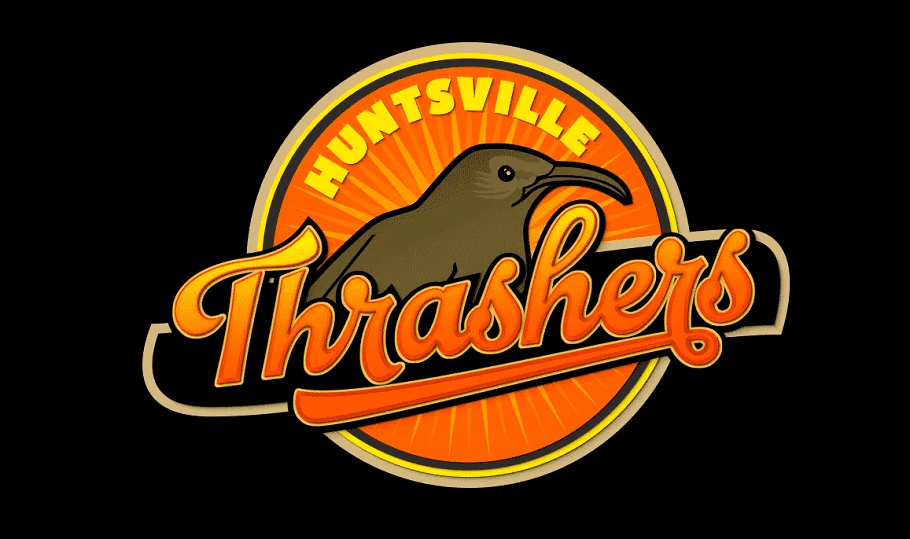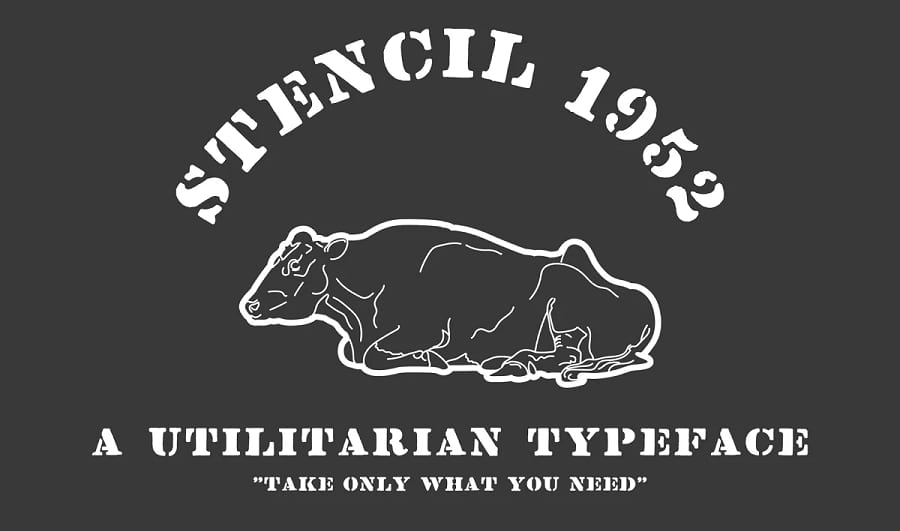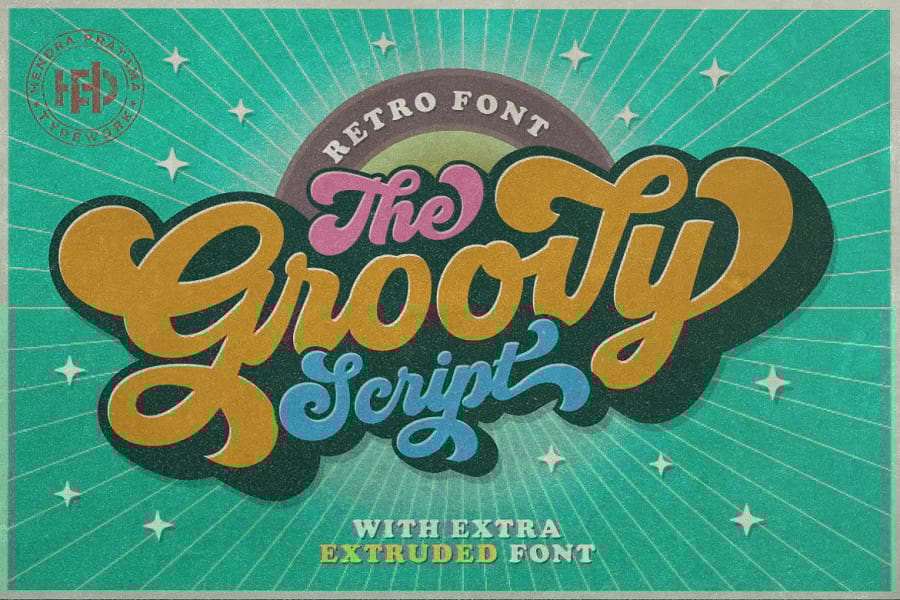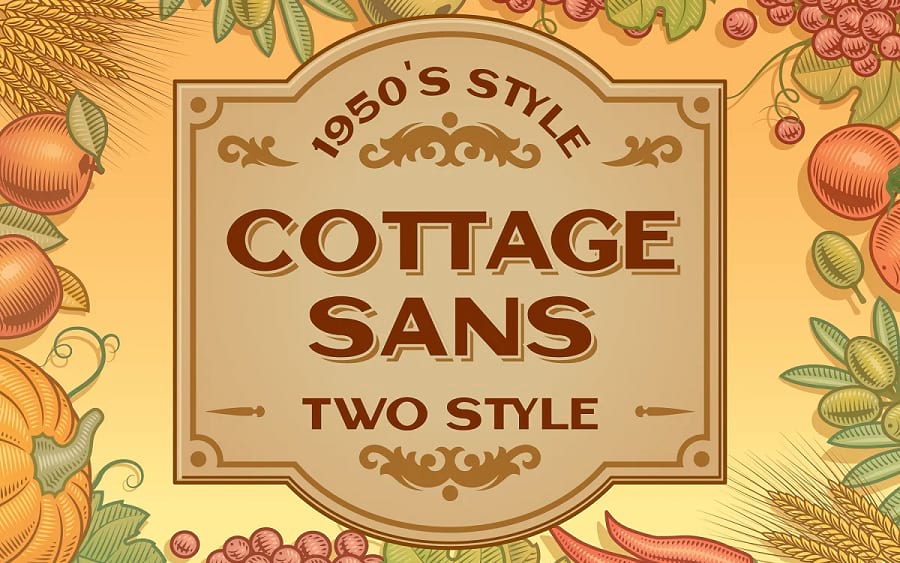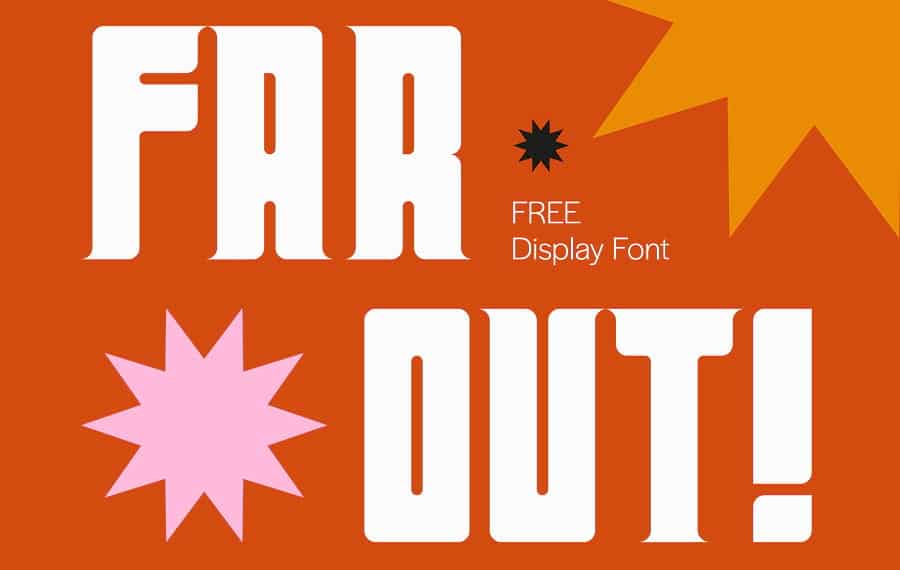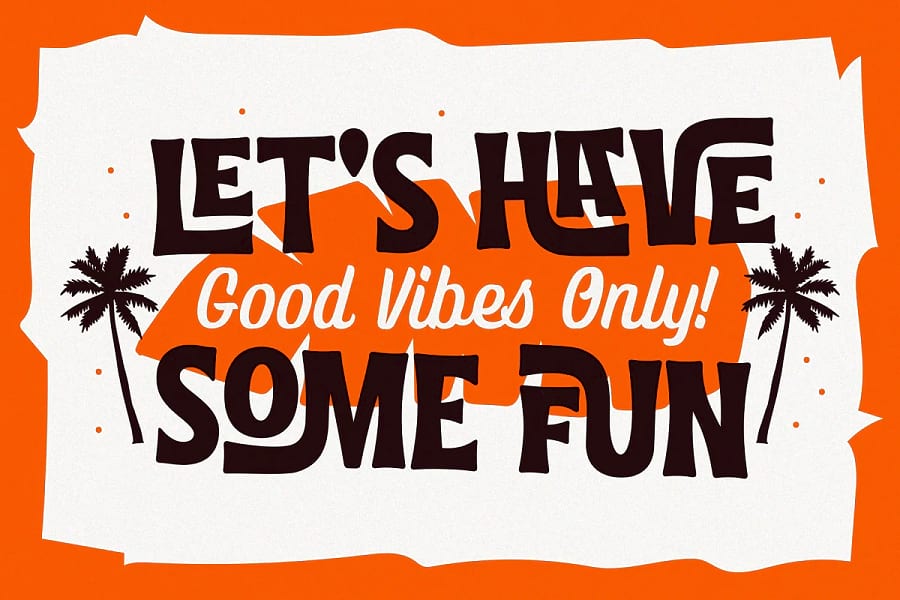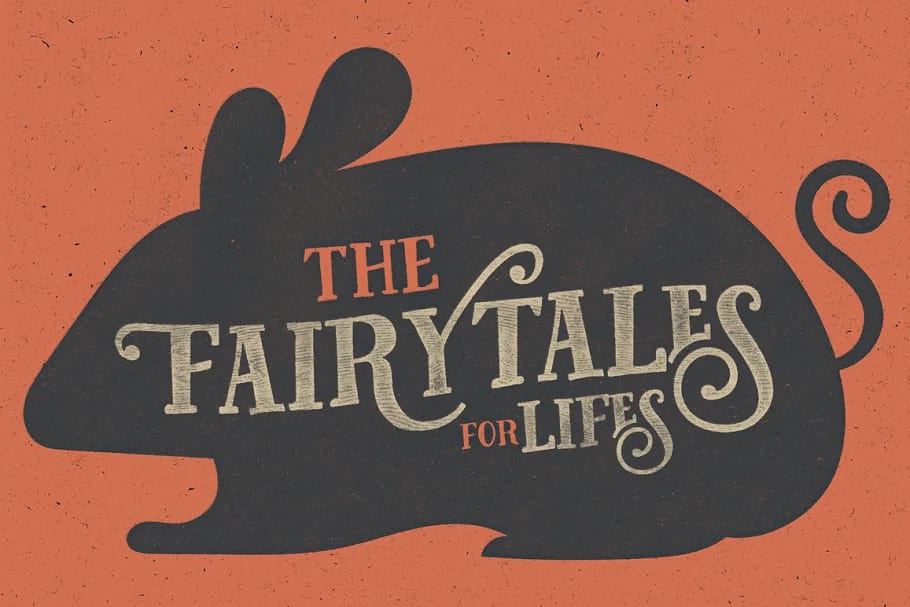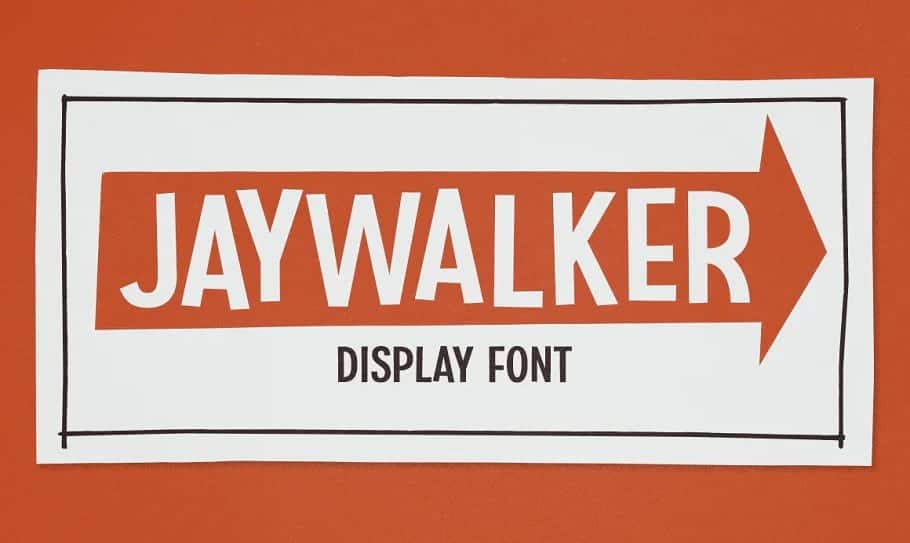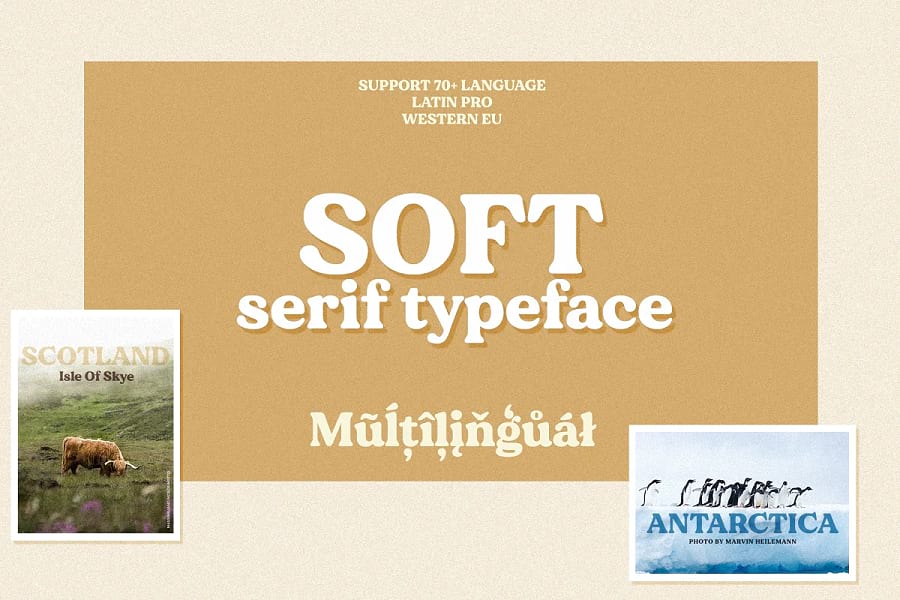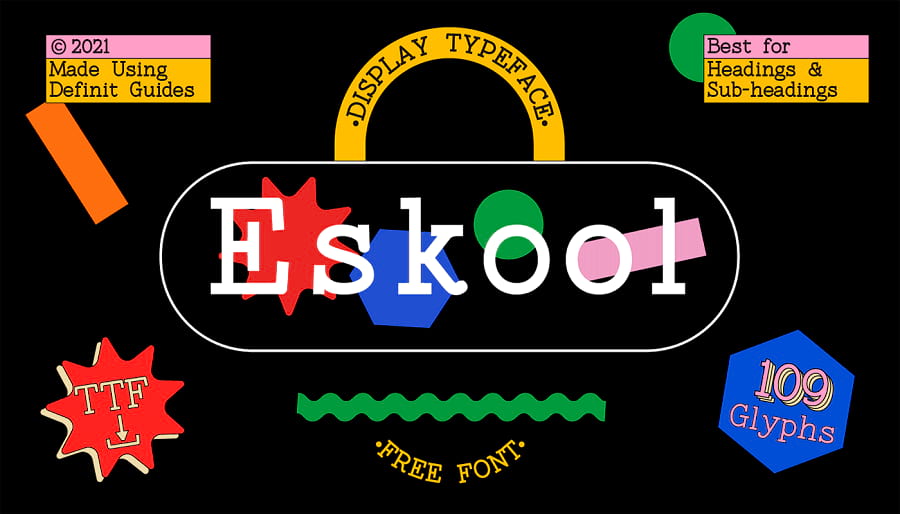
50+ Stunning Retro Fonts From the 50s to the 90s
33. Rotis
34. Souvenir
35. Stencil
36. Times New Roman
37. Trade Gothic
38. Trajan
39. Twentieth Century
40. Univers
41. VAG Rounded
42. Verdana
43. Windsor
44. Avant Garde
45. Benguiat
46. Bodoni Egyptian
47. Brushstroke
48. Caslon
49. Century Schoolbook
50. Comic Sans
51. Copperplate
52. Didot
53. Franklin Gothic
54. Futura Condensed
55. Gill Sans
56. Gotham
57. Hobo
58. ITC Avant Garde
59. ITC Bauhaus
60. ITC Garamond
61. ITC Lubalin Graph
62. ITC Stone Sans
63. ITC Zapf Chancery
64. Letter Gothic Std
65. Minion
66. Myriad
67. News Gothic
68. Palatino Linotype
69. Playbill
70. Poppl Laudatio
71. Proxima Nova
72. Rotis Sans Serif
73. Sabon
74. Segoe UI
75. Skia
Retro web fonts are packed with character, and they can give your website or graphic design project a nostalgic feel. But finding decade-specific fonts isn’t easy, so we’ve curated this list of vintage fonts organized by decade.
From the bright and peppy typography of the 90s to an elegant font designed after professional 50s lettering, “retro” is a diverse descriptor, and there’s plenty to choose from here.
What Are Retro Fonts?
Even those who never witnessed it themselves are familiar with the popular typography from the 20th century. From the early comic books of the 50s to the bold and bubbly scripts of the 60s and 70s to the fun cartoonish fonts of the 90s, each era was bursting with a unique personality.
“Retro” describes fonts that were either made in the 20th century and survived to see everyday use or were created by designers today attempting to emulate one of these styles.
Signage, posters, covers, advertising, TV shows and video games, logos, and famous brands from the 1950s-1990s all serve as inspiration.
These bold retro fonts look best in large sizes, whether you’re using them in a print design, emails, or showcasing them on your website.
Vintage 50s Retro Fonts
1. Labor Union
Labor Union font
The Labor Union font, inspired by the typography of the mid-20th century, would fit well in any project that requires a vintage industrial feel. It’s fully free, including for commercial use, so go ahead and put these bold serifs in a project of any kind.
2. TOOM
TOOM font
TOOM is heavily based on the work of EC Comics, a company that printed horror, dark fantasy, and science fiction comics in the 1940s and 1950s. Their signature uncanny text was created using a machine to emulate a handwritten style. Old comic fans will love this one.
3. Dog Days
Dog Days font
Dog Days manages to perfectly capture the handwritten calligraphy brush script popular in the past. It borrows its style from a vintage swimsuit advertisement. But while it may be based on an old-fashioned font, it comes with plenty of striking OpenType features.
4. Soda Fountain
Soda Fountain font.
Soda Fountain is an all-caps font based on the typography of 1950s diners and soda parlors. Its smooth, soft lines look perfectly vintage, and it’s free for personal and commercial use.
5. Journey
Journey font.
Journey is a vintage brush script font bundled with ornaments and alternate characters that make it very versatile. If you’re trying to emulate the look of an elegant 50s advertisement, try this one.
6. Fresh Press
Fresh Press font.
Many 50s cursive fonts are slender and elegant, but Fresh Press goes for a much more bold look that’s sure to amaze. There’s also a rougher, more textured version of the font if you want that old-timey feel.
7. Powder Script
Powder Script font.
Need something glamorous? Try Powder Script. The flourishes on each letter are exquisite, and the font includes 800 glyphs per weight, so every letter you type is unique.
8. Pitcher
Pitcher font.
Pitcher attempts to capture a little taste of American culture in the 1940s and 1950s with a bold font full of personality. There’s both the clean version and a textured, grungier alternative available.
9. Stencil 1952
Stencil 1952 font.
Stencil 1952 is a clean and no-nonsense stencil font discovered in an old typography book, so you know it’s the real deal. Many fonts attempt to emulate the typography of this era, but this one was lifted right out of the past.
10. Cottage Sans
Cottage Sans font.
Cottage Sans is a beautiful, rustic font in a regular and rounded style. The strong sans serifs will look good in any design to nail the old nostalgic feel.
Groovy 60s Fonts
11. Ramdone
Ramdone font.
In the Ramdone font, you can see the transition from 50s brush scripts into something similar but with a little more pep. It also includes the extruded effect, so you can make your typeface look 3D.
12. Groovy
Groovy font.
These bold 3D scripts were popular in the 60s and 70s, and Groovy nails it perfectly. As the extruded effect comes with the font, it’s easy to make this font look just like the preview pictures.
13. Far Out!
Far Out! font.
Far Out’s inspiration is a little looser, but you can still see the unique style of the 60s woven into it. As it’s free for all types of use, you should try it if you want something a little different but still clearly belonging in this era.
14. Milkman
Milkman font.
This is an interesting one; Milkman combines retro and modern typography to create something that easily fits into the 21st century but retains a vintage vibe.
15. Pirates
Pirates font.
This stylish script would look perfect on a poster. The little artistic flairs are beautiful and add a ton of character to the font, but Pirates is still very elegant and detailed even without them.
16. Fairy Tales
Fairy Tales font.
Old fairy tales always evoke nostalgia, and while this design is timeless, it still is reminiscent of whimsical advertisements from the mid-20th century. This Fairy Tales pack also has a few vector animal designs that pair well with the mystical font.
17. Tropika Island
Tropika Island font.
The midcentury had an obsession with this lively tropical style, and Tropika Island is very reminiscent of the advertisements and signs from back then. This comes with both the bold main font and a softer but just as stylized script.
18. Jaywalker
Jaywalker font.
Though simple in design, Jaywalker is brimming with nostalgia for posters, advertisements, and cartoons from the 1960s. It’s an all-caps font that includes numbers, special characters, and a fair number of accented letters.
19. Frost
Frost font.
If you’re looking for a vintage script font that’s true to the classic style while fitting into modern designs, Frost is the perfect candidate. It includes three weights, a caps and small caps version, and various decorative ornaments to pretty up the text. Every letter has at least three glyphs, so it never looks repetitive.
20. The Beardy
The Beardy font.
The Beardy is a big and bright serif font that serves as a callback to the pop culture of the 60s and 70s. The bold font is most suitable for headings, logos, and large posters and will instantly transport your project back in time.
Lively 70s Retro Fonts
21. Dillan
Dillan font.
Dillan features soft serifs that are particularly suited to vintage posters, as displayed in the demo images, though it’s a versatile font that can work anywhere.
22. Lovadelic
Lovadelic font.
While Lovadelic resembles many other “groovy” script fonts, as its name implies, it takes a more psychedelic approach with showy ligatures and glyphs. There are also a few sketchy graphics bundled to combine with the typeface.
23. Frito Vandito
Frito Vandito font.
1970s van culture had its unique take on the typography of the era, and Frito Vandito perfectly encapsulates that. The bottom-heavy, imperfect edges lend a unique flavor to this 70s-inspired font.
24. Restora
Restora font.
Restora is a Roman serif font that features a bit of a flare, thanks to swashes and ligatures. While it’s a bit more old-fashioned than some fonts from this era, it fits nicely into more professional but still vintage works.
25. Oldways
Oldways font.
Oldways resembles old Western-style fonts with its stylized serifs, but it’s been mixed with a modern flair. It’s free for personal and commercial use, and it makes a great addition to any project looking to capture that Western niche.
26. Cadet
Cadet font.
Cadet’s roots are in Bauhaus, an artistic design popularized in the 1920s and 1930s though it saw a surge again in the 70s. It’s also based on several typefaces from the 1970s, so it’s a very authentic vintage font.
27. Heirloom
Heirloom font.
True to its tagline, Heirloom is a bubbly and friendly font suitable for any old-fashioned aesthetic, especially those with natural and earthy roots. Many fonts from the 70s are heavily stylized, but Heirloom is more soft and readable.
28. Summer of 76
Summer of 76 font.
Summer of 76 is a multi-line font reminiscent of neon signs from the 70s. But despite its unique look, it’s a very relaxed typeface. There’s also a solid version if you want something a little bit more readable and practical.
29. Olive Village
Olive Village font.
Olive Village manages to take that lively groovy style and refine it into classy. This font wouldn’t look out of place in a professional print or poster. It keeps that classic feel while still looking good in current projects.
30. Tangerine
Tangerine font.
Tangerine was designed to evoke a sense of nostalgia for the 70s and its designs. Rather than directly copying old typography, the designers had their take on the style while remaining true to the decade.
31. Psychedelic Bubble
Psychedelic Bubble font.
Colorful bubble fonts were popular in the 70s, and Psychedelic Bubble gets that playful aesthetic right. If you want to brand your project as vintage, this is a good choice.
Fun 80s Retro Fonts
32. Saturday Night
Saturday Night font.
The 80s and 90s led to a lot of experimentation, and wild designs like this were commonplace. Saturday Night was created as an homage to the disco scene, and true to its out-there design, the Interlock variant has 777 ligatures.
33. Retrohols
Retrohols font.
You can see that the funky, stretched, and vertically asymmetrical style of the 70s still lingered into the next decade. Retrohols is a fancy font that is slightly more refined, but just as lively.
34. Thunderstorm
Thunderstorm font.
Thunderstorm uses bold, slanted brush strokes to harken back to pop culture designs of the 80s and 90s. Perfect if you need a display font that’s bursting with energy.
35. West Side Font
West Side font.
West Side is a cute font that is free for use in any project. The blocky style is reminiscent of cartoons and posters from the 80s, with a unique and beautiful style that will be instantly effective.
36. LAZER 84
LAZER 84 font.
LAZER 84 is a rugged brush script that would look great in the high-tech/synthwave-style graphics popularized in the 80s. This one is free for personal use, so feel free to try it out.
37. Paralines
Paralines font.
The creator of the Paralines font describes it as retrofuturistic, inspired by both a retro 80s style and modern designs. This one is free as long as you credit the designer on your website.
38. Asther
Asther font.
When people think of 80s fonts, their minds may go to a particular “techno” style or the bubbly leftovers from the 70s, but the 1980s also had plenty of elegant and professional typography. Asther is a slim vintage font that would look great on a fashion website or in advertising posters.
39. ENDLESS BUMMER
Endless Bummer font.
Skateboarding culture in the 80s brought its own culture and typography, and Endless Bummer brings you back to those old graphics and branding. It’s also free for personal and commercial use.
40. Stereo
Stereo font.
Stereo is a free typeface that resembles the font used on old 90s stereo speakers. It’s a unique idea that results in a simple and appealing, but unmistakably vintage font. It’s also free for personal use.
41. Rothko
Rothko font.
The distinct art deco style has surged and fallen in popularity throughout the century but experienced a revival in the 1980s. Rothko is multilingual and supports a dozen languages, so anyone can use this unique font.
42. Letter Magic
Letter Magic font.
Letter Magic is a fun, playful font featuring various artistic ornaments and swashes. This would fit very well into any project that requires an old-fashioned, light-hearted theme.
43. Revive 80
Revive 80 font.
The Revive 80 font pack captures the bold and blocky look of 80s typography. It includes the Phatt, Wide, Tall, and Signature versions of the typeface, each with an outline version to make a bundle of 8 fonts.
Nostalgic 90s Retro Fonts
44. Eskool
Eskool font
If you went to school in the 90s or played edutainment games from that era, Eskool should feel very familiar to you. Use it for free in any personal project for a nostalgic taste of the 1990s.
45. Hot Rush
Hot Rush font.
Inspired by the fast-paced car culture of the 80s and 90s, Hot Rush is an awesome font that includes several variations: The standard variant plus italics, striped with italics, and script font. There are also swashes, alternates, and multi-language support!
46. 90 Ninety
90 Ninety font.
90 Ninety is a completely free Armenian font, subtly old school and yet still very cool. The numbers alone would look great in a techno design.
47. Wasted Youth
Wasted Youth font.
Wasted Youth is a grungy font that draws inspiration from skater culture, horror movie posters, and punk bands from the 90s. It comes in three styles: a clean version and two hand-drawn variations in a marker and brush pen.
48. MEMPHIS
MEMPHIS font.
Color fonts aren’t common since they aren’t always web safe, but Memphis uses the new technology. This playful font resembles patchwork and would be at home in crafty or cartoonish designs. There are also four styles available to suit different backgrounds or design needs.
49. Childish Reverie
Childish Reverie font.
People who were kids in the 90s will have a lot of nostalgia for the Childish Reverie. Not only does it perfectly capture the typography style of children’s media in the era, but it also includes both the regular font, color font in both SVG and PNG, and various doodles you can decorate your text with.
50. Baou
Baou font.
At first glance, this looks like a standard sans serif font, but some unique bits of style make this distinct. Baou is suitable in a wide variety of sizes and situations.
51. Hell Builder
Hell Builder font.
The teen horror fiction genre of the 90s had a very distinct look, and Hell Builder has it down perfectly. Use it in logos and posters meant to emulate this era of horror, and no one will be able to tell it’s from this era.
52. Comba
Comba font.
Comba is a quirky all-caps font fitting with a fun, stylish appeal of 90s typography. Use it if you want a font that’s not quite normal and stands out instantly.
53. Wild Star
Wild Star font.
The Wild Star font duo pairs remarkably well together, and is heavily reminiscent of 90s rock culture. This makes it very well suited for album covers, though you can use it anywhere you need a bold and loud font duo.
54. The Ultimate 90s Font Pack
The Ultimate 90s Font Pack font.
While The Ultimate 90s Font Pack isn’t just one font, it’s a good deal on a bundle of 90s-inspired fonts, including one on this list, Childish Reverie. It includes an exclusive bubble font to sweeten the deal. With this pack, you’ll have access to all the quirky, high-energy typography of the 1990s.
How to Pick the Best Retro Font
With so many fonts to pick from, you may be feeling a bit overwhelmed! Let’s narrow down the selection a bit.
First, it’s probably easiest to pick a specific decade or two that you want to emulate. There’s some overlap from era to era, but the unabashedly unique fonts of the 90s are a far cry from the 50s’ more elegant branding and signage.
Depending on your target audience and whether you pick an older or newer era, vintage fonts can give your project either an elegant and old-timey vibe or a more comfortable and nostalgic feel.
Once you’ve selected a decade, it’s much easier to pick out a font based on stricter criteria. Decide on a budget – or choose one of the multiple free fonts from this list – and see if the font’s character set fits your needs (for instance, if you need a multilingual font or certain special characters).
You can narrow it down further by size and readability requirements. If you’ll be using the font in a logo, website header, or large graphic/poster, readability is less important, and you can pick a font optimized for large sizes.
If you plan on using it for entire paragraphs of text, many of these more decorative font choices won’t work out. You’ll need to pick a readable font that looks good at smaller sizes.
A lot of these retro fonts are very stylistic and so unsuitable for small text sizes, but there are a good few here that will do the trick.
Summary
A wildly varied culture marked the 20th century from decade to decade. Each of these eras has something unique to offer. Whether you’re looking for an elegant brush script or a peppy display font, one of these 50+ nostalgic fonts has what you need.
Need even more fonts? Check out the top 15 Google fonts and 50+ modern fonts for a good idea of what’s popular now.
Source link
Discover more from Jassweb
Subscribe to get the latest posts sent to your email.
Jaspreet Singh Ghuman